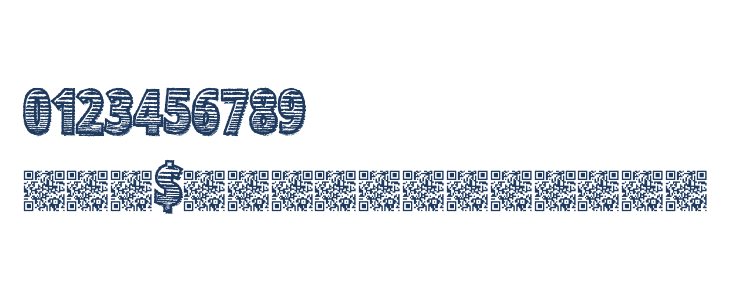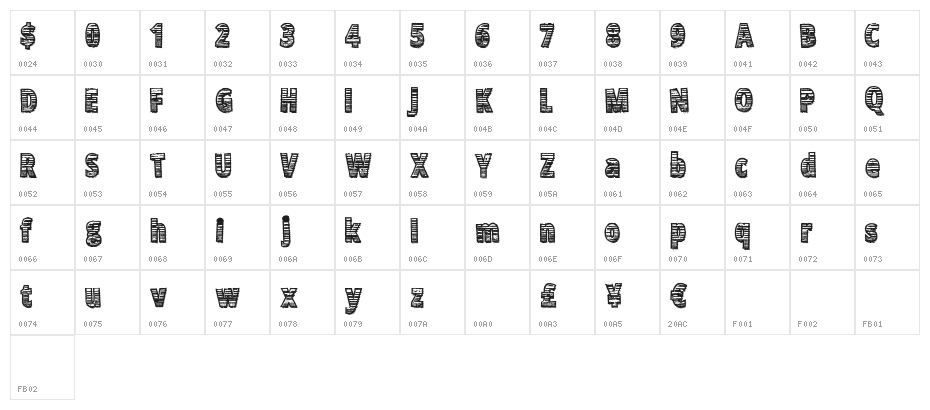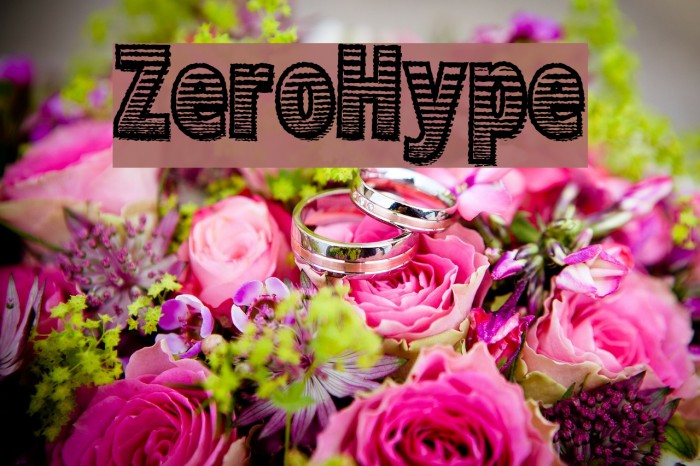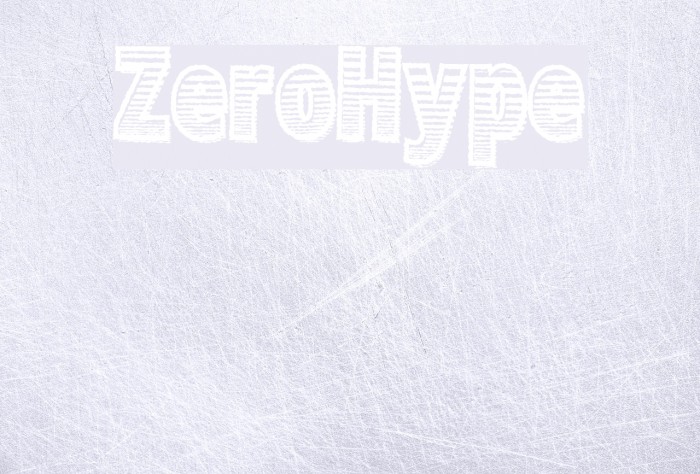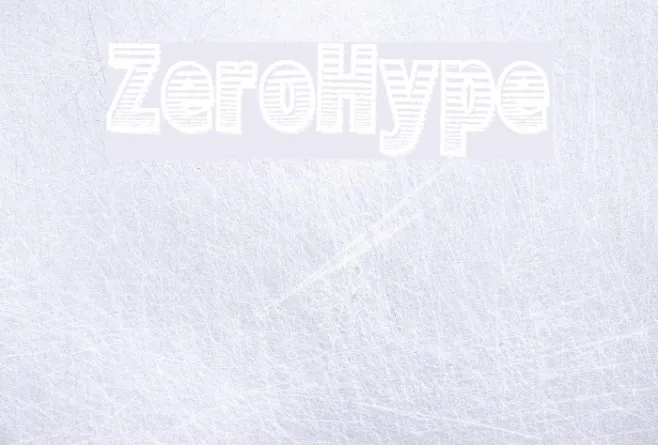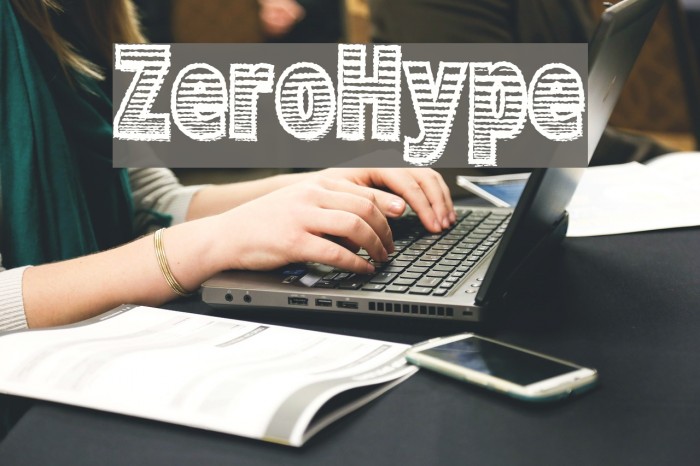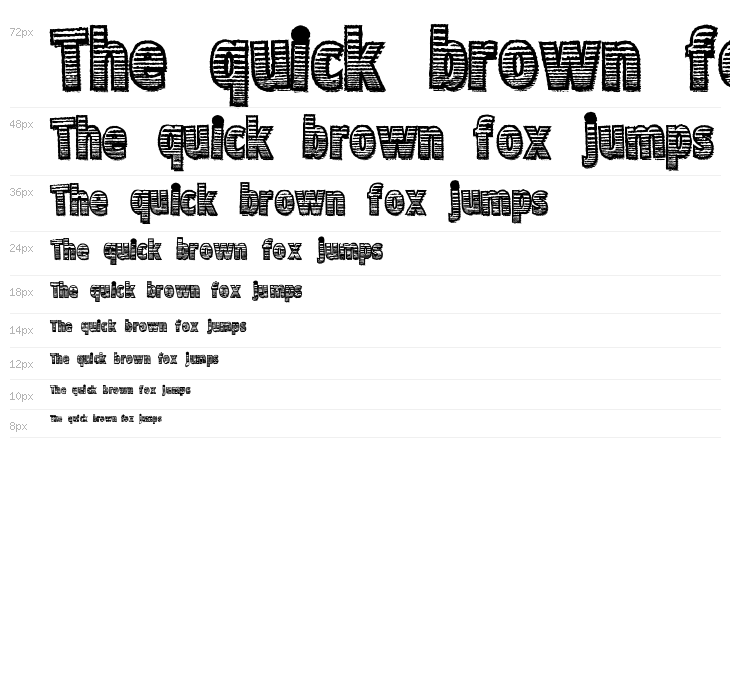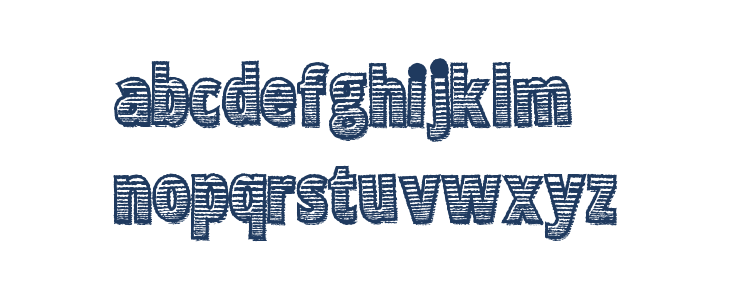
ZeroHype Font
ZeroHype Description
This font features a bold, textured style with a hand-drawn appearance. Each character is filled with horizontal lines, giving it a sketch-like quality that adds depth and interest. The uppercase and lowercase letters maintain a consistent width, while the numbers and special characters follow the same design principles. The font's playful yet structured look makes it suitable for creative projects that require a unique and eye-catching typeface.
| Proposed Projects | Ideal for posters, artistic projects, children's books, and branding that requires a creative touch. |